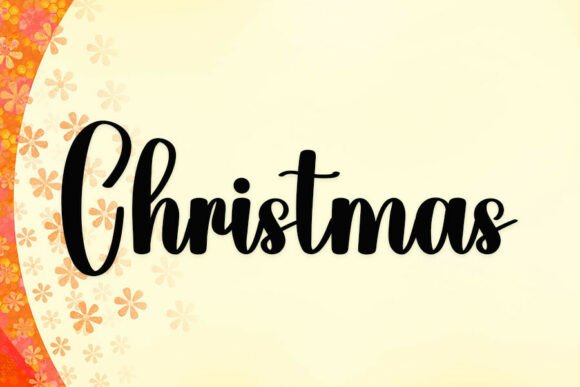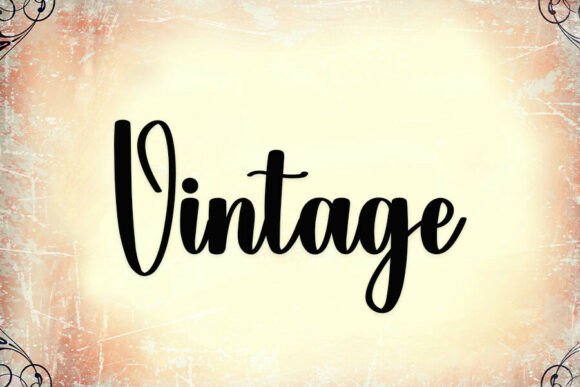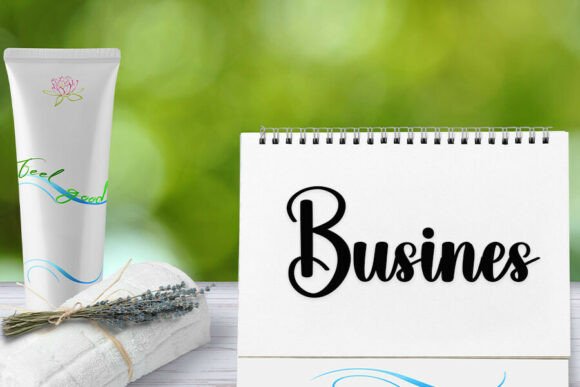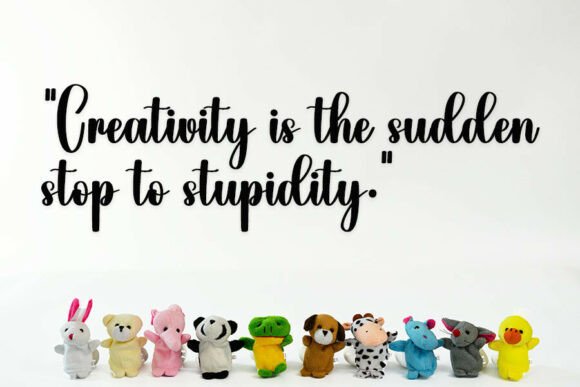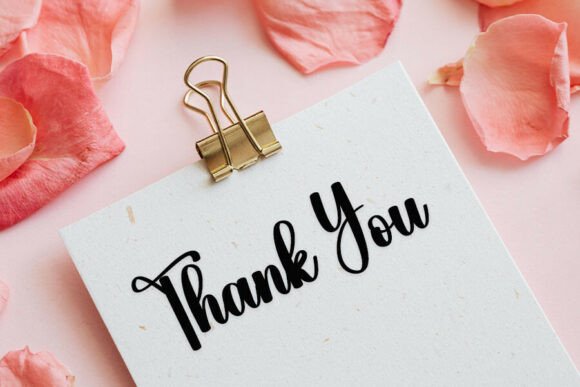
Introducing Birthday Font: The Sweet and Elegant Handwritten Font for Your Designs
Are you looking for a font that can add a touch of elegance and romance to your designs? Look no further than Birthday Font, a sweet and cursive handwritten font that’s perfect for a variety of design projects. In this article, we’ll explore the features and benefits of Birthday Font, and show you how it can elevate your designs to the next level.
What is Birthday Font?
Birthday Font is a beautiful, handwritten font that’s designed to add a touch of whimsy and romance to your designs. With its gentle, cursive curves and sweet, flowing lines, this font is perfect for creating elegant and sophisticated designs that will capture the attention of your audience. Whether you’re designing a logo, a greeting card, or a marketing promotion, Birthday Font is the perfect choice.
Features of Birthday Font
So, what makes Birthday Font so special? Here are just a few of its key features:
- Sweet and cursive: Birthday Font has a beautiful, cursive script that’s perfect for creating elegant and sophisticated designs.
- Handwritten feel: This font has a warm, handwritten feel that’s perfect for adding a personal touch to your designs.
- Versatile: Birthday Font can be used for a wide range of design projects, from branding and logos to wedding things and greeting cards.
- Elegant and casual: This font has a unique blend of elegance and casualness, making it perfect for designs that need to be both sophisticated and approachable.
Benefits of Using Birthday Font
So, why should you choose Birthday Font for your designs? Here are just a few of the benefits of using this beautiful font:
- Adds a touch of elegance: Birthday Font can add a touch of elegance and sophistication to your designs, making them stand out from the crowd.
- Perfect for romantic designs: This font is perfect for designing romantic and whimsical designs, such as wedding things and greeting cards.
- Easy to read: Despite its elegant and cursive feel, Birthday Font is easy to read and understand, making it perfect for designs that need to communicate a message.
- Customizable: This font can be customized to fit your design needs, making it perfect for branding and logo design.
Design Ideas Using Birthday Font
So, what can you create with Birthday Font? Here are just a few design ideas to get you started:
- Branding and logos: Use Birthday Font to create elegant and sophisticated logos and branding materials that will help your business stand out.
- Wedding things: This font is perfect for designing wedding invitations, wedding cards, and other wedding-related materials.
- Greeting cards: Use Birthday Font to create beautiful and heartfelt greeting cards for special occasions, such as birthdays and anniversaries.
- Fashion and lookbook: This font is perfect for designing fashion-related materials, such as lookbooks and marketing promotions.
In conclusion, Birthday Font is a beautiful and elegant handwritten font that’s perfect for a variety of design projects. With its sweet and cursive feel, this font can add a touch of elegance and romance to your designs, making them stand out from the crowd. Whether you’re a designer, crafter, or DIY enthusiast, Birthday Font is a great choice for any design project that needs a touch of whimsy and sophistication.